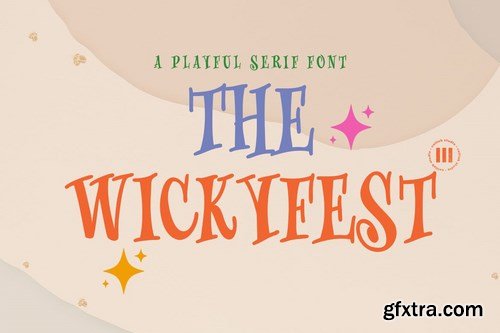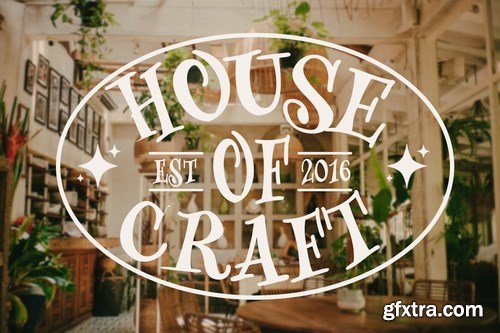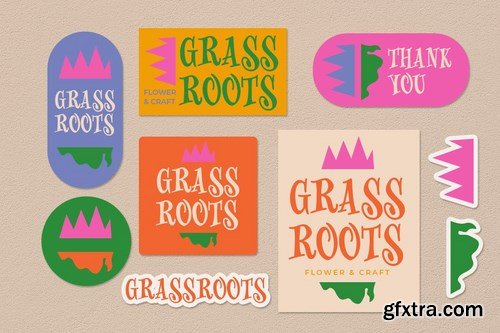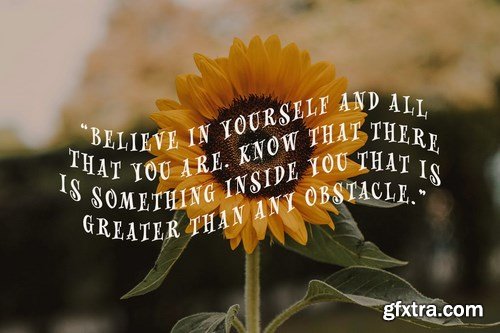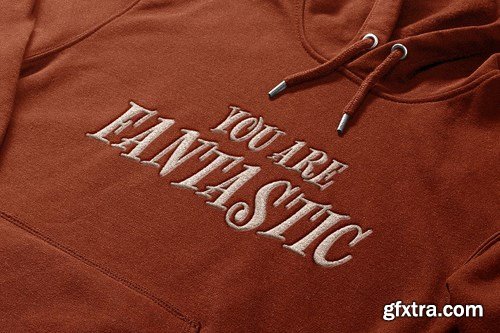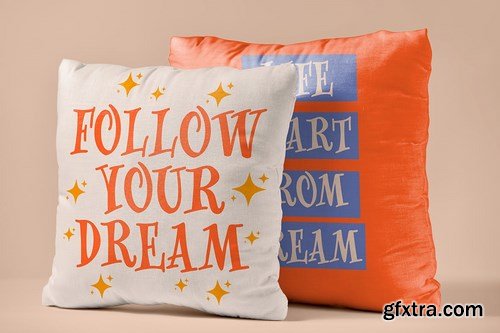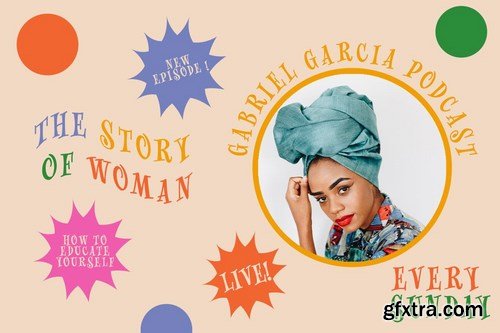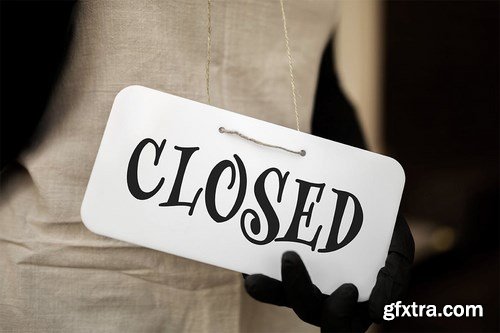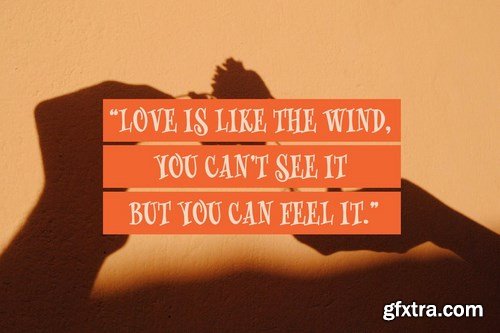
**The Wickyfest ** is a playful serif font font that is suitable for design projects; playful theme, logo, branding, poster, quotes, display, beautiful stationary art, eye-catching social media posts, and cute greeting cards, and any other designs.